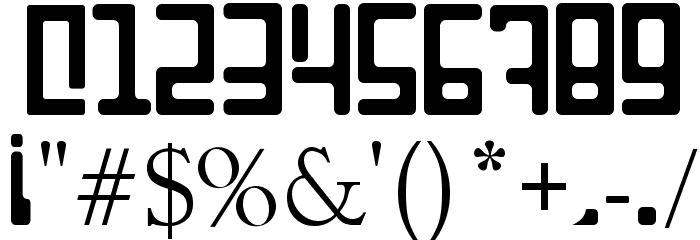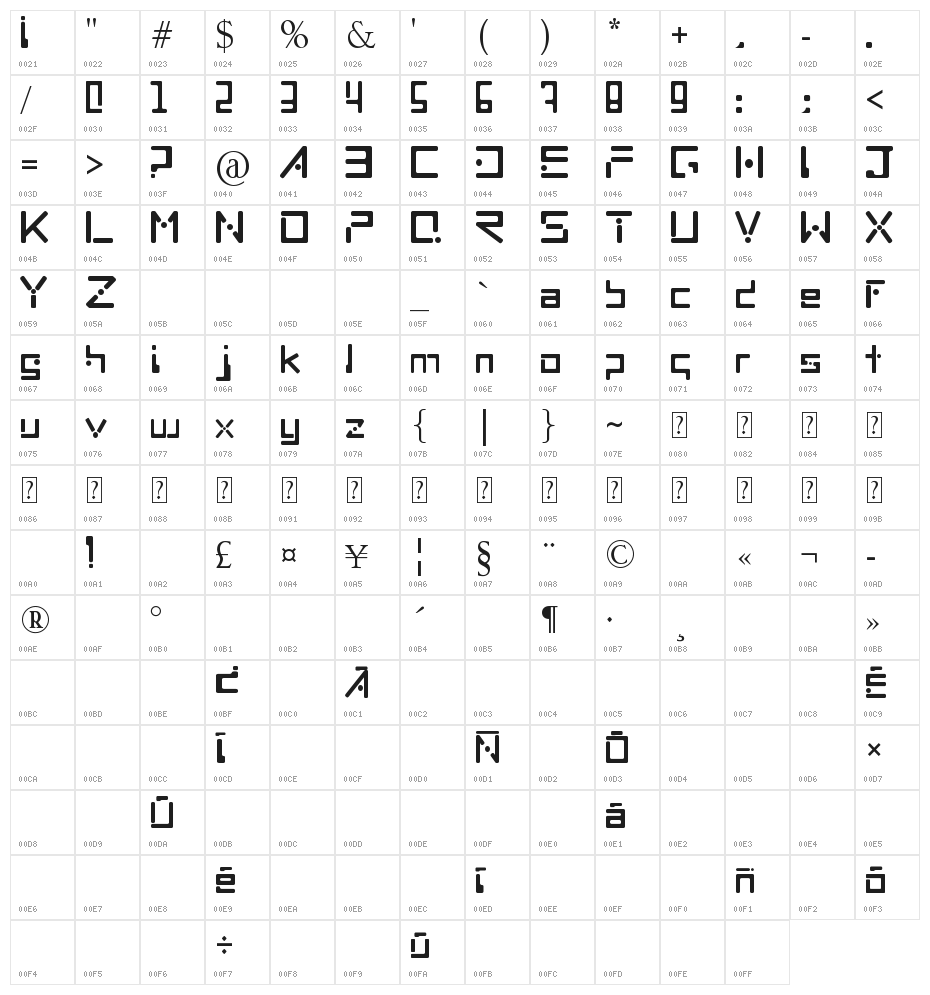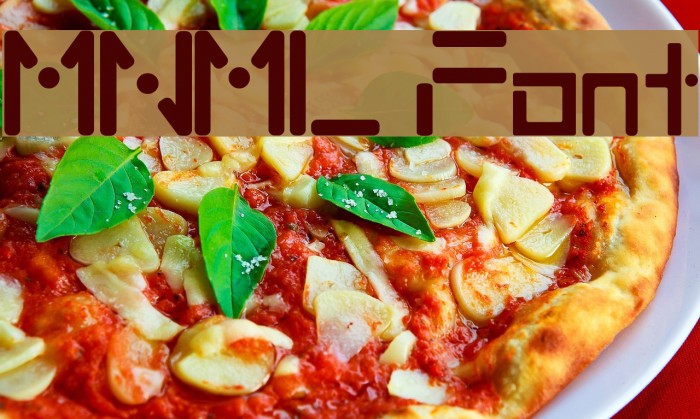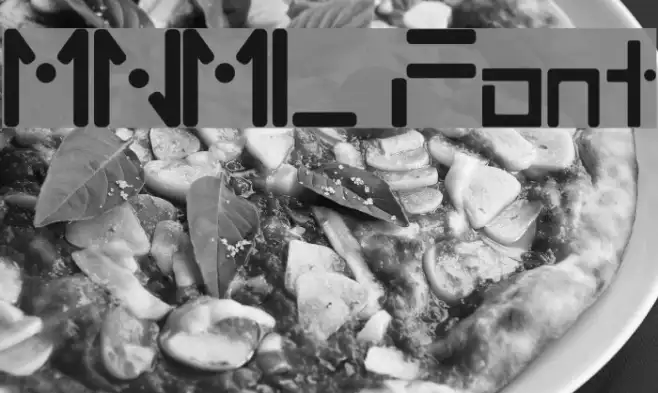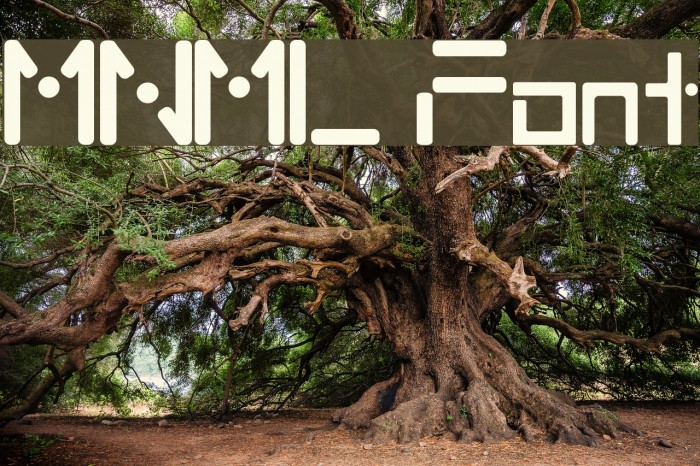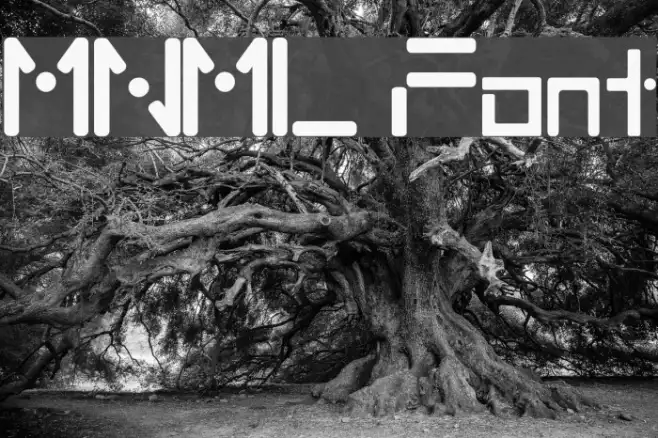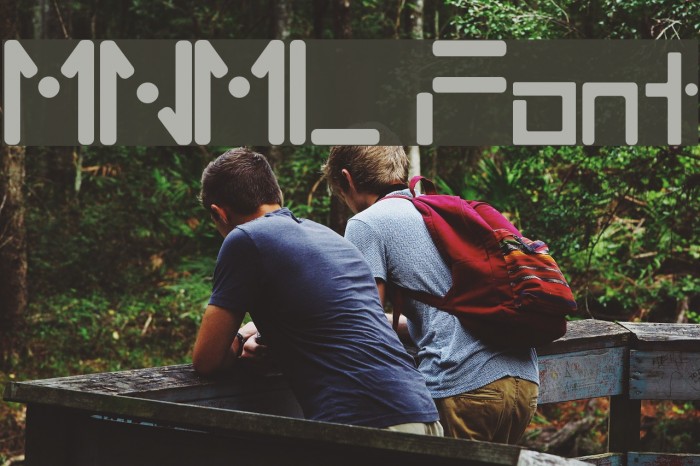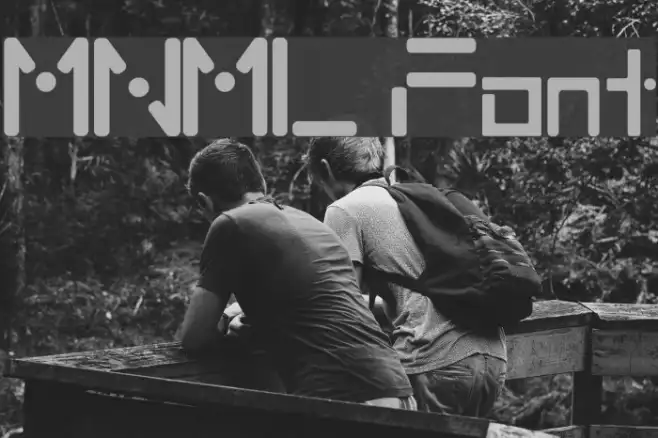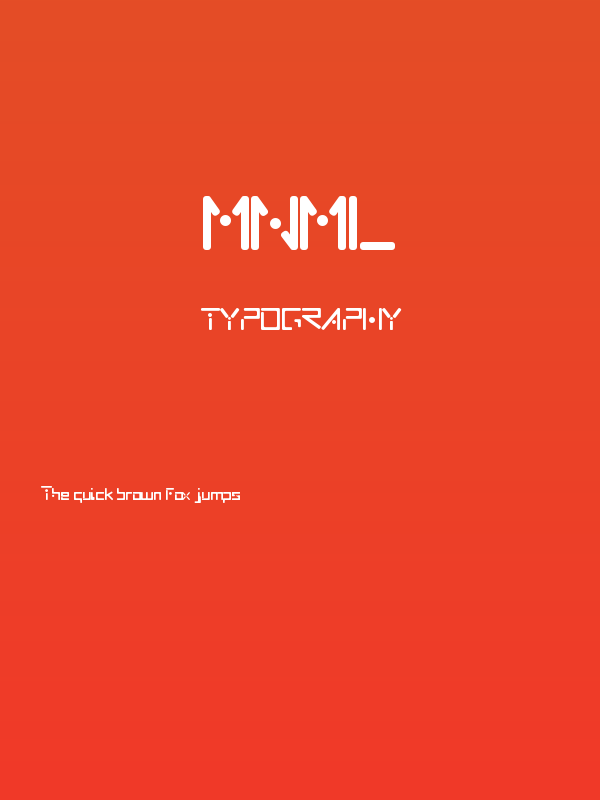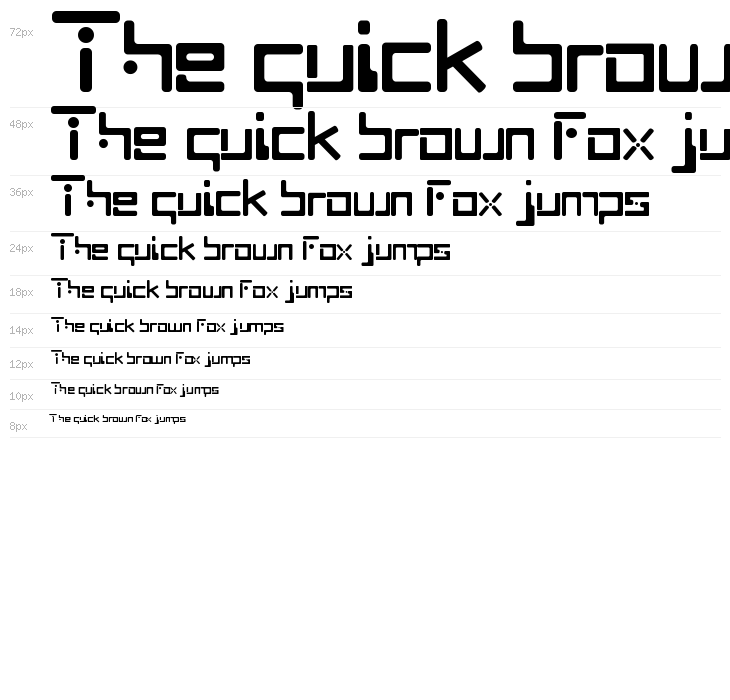
MNML Font
MNML Description
This font features a futuristic and geometric design with a distinct modular appearance. Each character is composed of bold, rounded segments that create a sense of modernity and innovation. The uppercase and lowercase letters maintain a consistent style, with unique dot and line combinations adding a playful yet structured feel. Numbers and special characters follow the same design principles, ensuring uniformity across all glyphs. The font's boldness and unique character shapes make it stand out, ideal for projects that require a modern and tech-savvy aesthetic.
| Proposed Projects | Ideal for technology branding, sci-fi posters, video game titles, and modern advertising. |